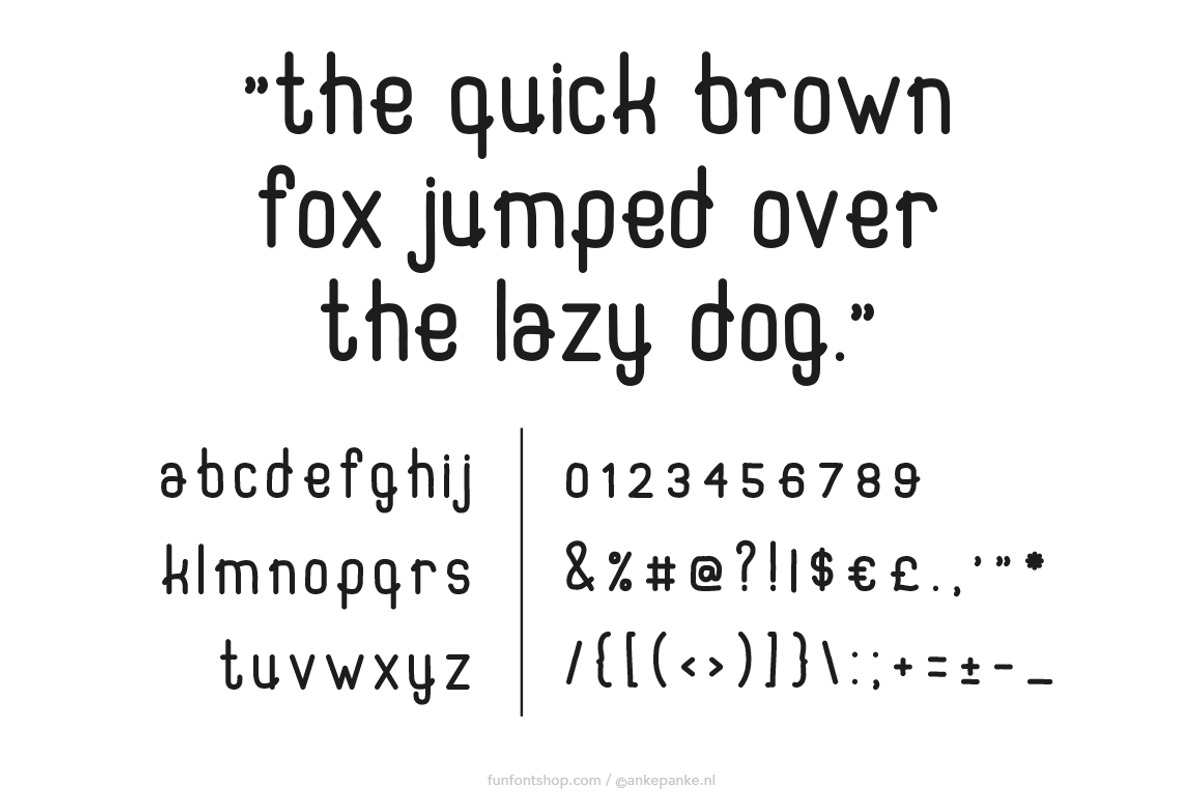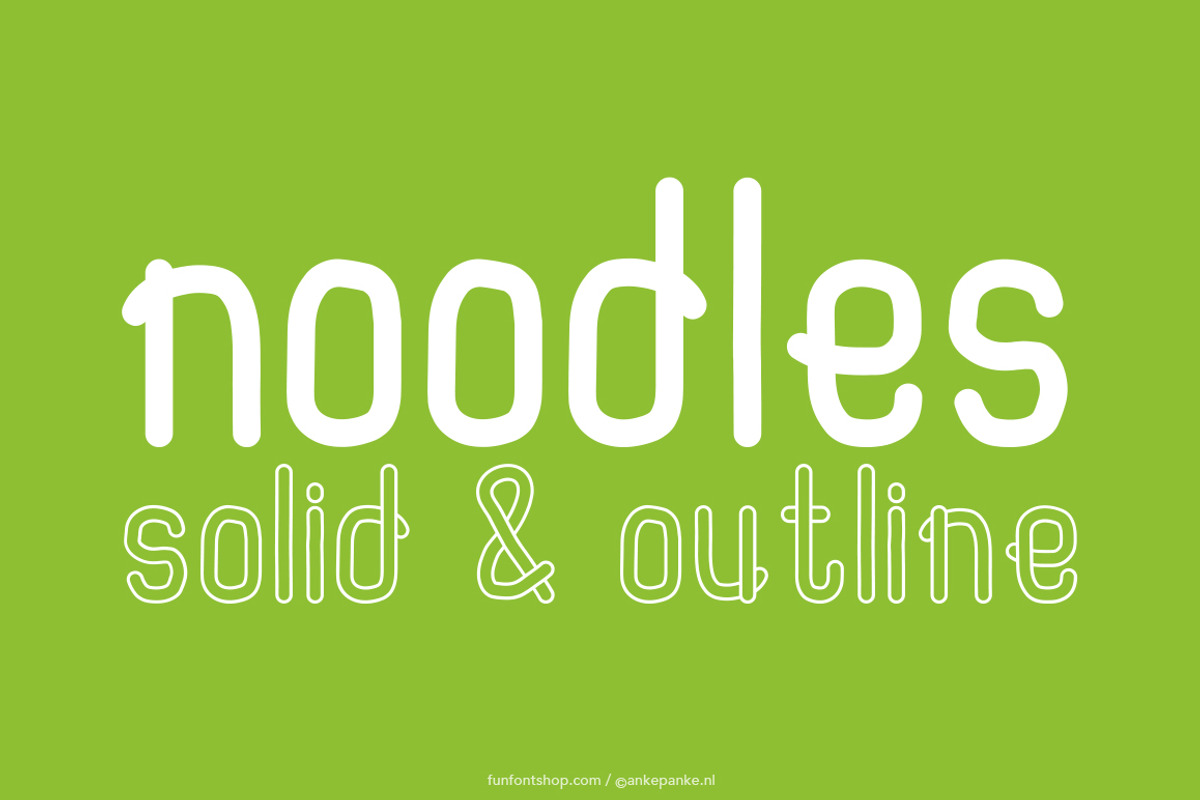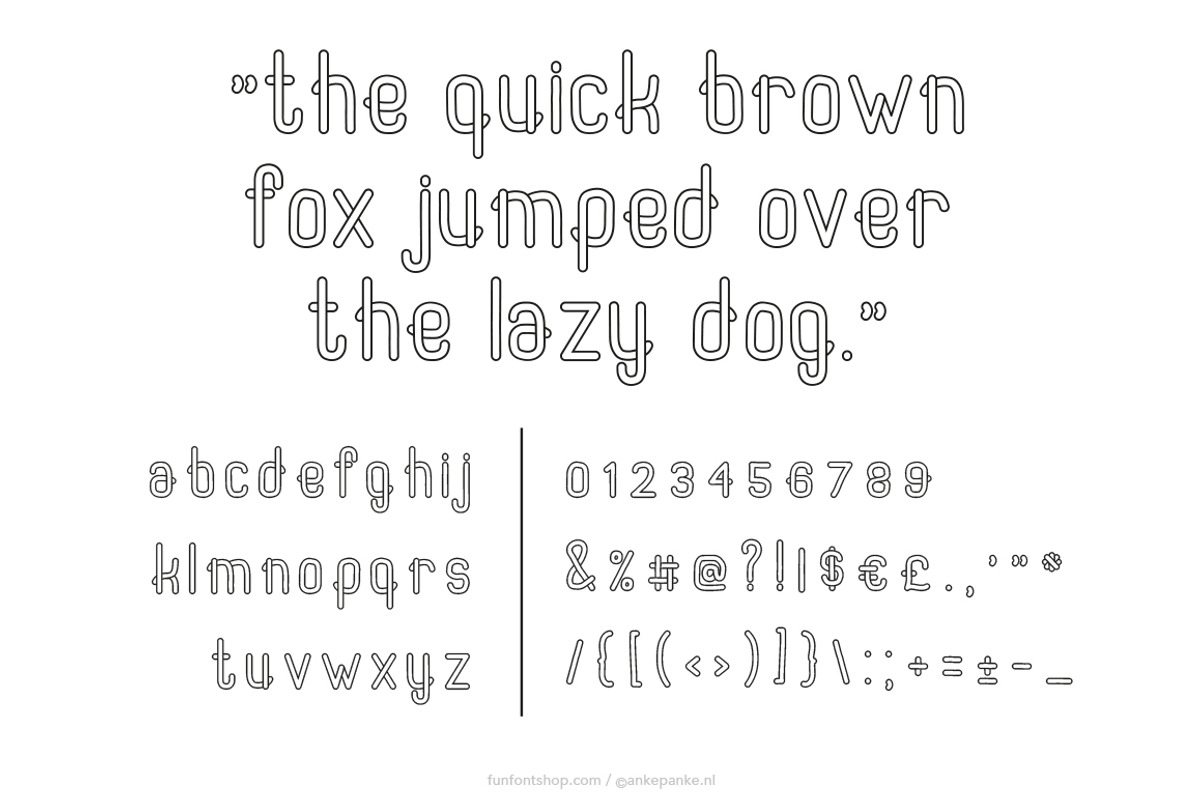
Noodles Font
Noodles Font by Fun Font Shop is a font selected for branding, posters, packaging, typography.
- A fun font with a with an outline and black version included.
- Noodles Black Black
- Noodles Outline Outline
Why Noodles Font is worth a look
Noodles Font by Fun Font Shop fits naturally into Branding, posters, packaging, typography.